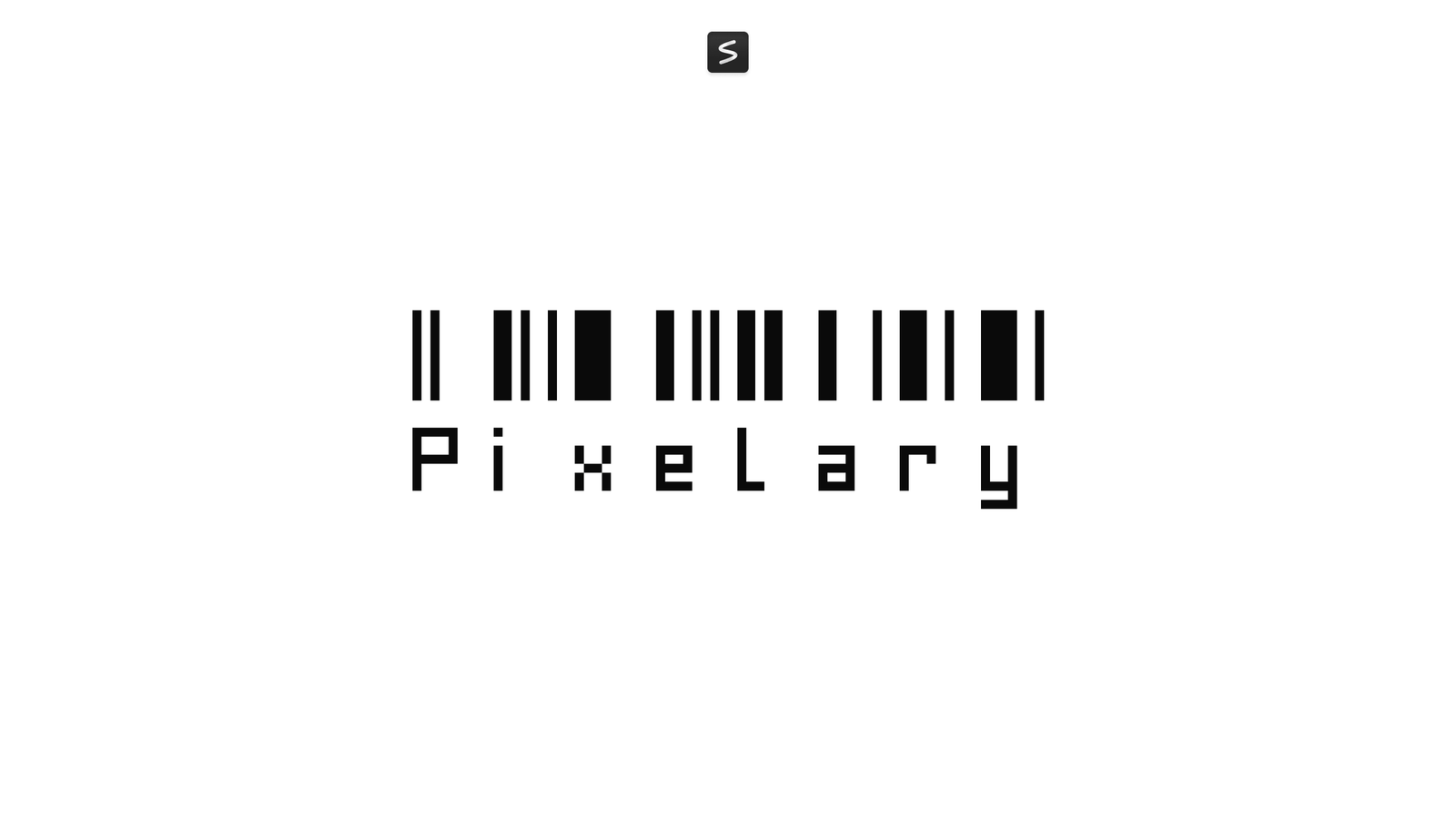
Pixelary
Pixelary is a bitmap font by Patch that builds on the visual language of Paskowy. Where the original used arbitrary stripe accents above its letters, Pixelary replaces those with actual binary encoding of each character, turning decorative flourishes into functional data representation. The result is a pixel-grid typeface that feels both playful and deliberately constructed.
Each letter carries its own binary signature above it, creating a layer of hidden meaning beneath the surface. The font maintains crisp, readable forms at its core while adding this technical overlay that appeals to designers who enjoy conceptual depth. It works well in projects that blend retro computing aesthetics with typography, from game interfaces and indie software to posters and branding that play with data visualization.
Pixelary is a solid choice for anyone wanting a display font with actual substance behind its visual design, not just decoration.